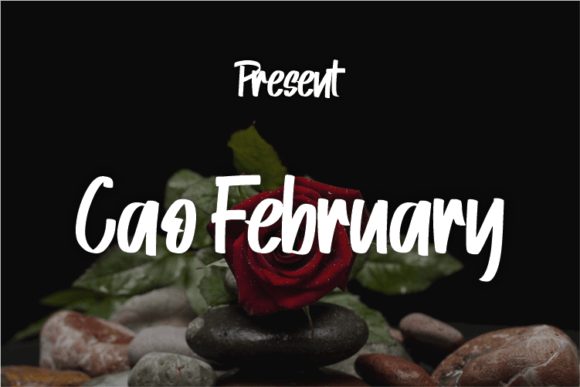
The Designer’s Delight: Unpacking the Elegance of Cao February Font
I’ll never forget the time I was working on a luxury fashion brand’s logo project, and I just couldn’t seem to find the perfect font. The client wanted something elegant, modern, and sophisticated, but everything I tried looked either too bland or too over-the-top. That’s when I stumbled upon Cao February, a script typeface that has a simple yet stunning style. ✨ In this article, I’ll share my experience with this beautiful font, its features, and how to make the most of it in your designs.
- ✅ Elegant and luxurious feel, perfect for high-end brands
- ✨ Simple yet modern design that’s versatile and easy to read
- ✅ Great for a variety of design projects, from logos to magazines and clothing
- ✨ Works well in both digital and print formats
A Few Quirks to Keep in Mind
While Cao February is an amazing font, there are a few things to be aware of: ⚠️
- 🤔 May not be the best choice for very long texts or body copy, as it can be a bit ornate
- ⚠️ Limited availability of certain characters or glyphs, so be sure to check the font specs
The Story Behind Cao February: Designer Inspiration
Cao February was designed with the goal of creating a simple, modern script typeface that’s both elegant and versatile. The designer, available on MyFonts, drew inspiration from classic script fonts, but with a fresh twist. The result is a font that’s perfect for luxury brands, fashion designs, and creative projects that need a touch of sophistication.
Q: What is Cao February font best used for?
A: Cao February is perfect for elegant and luxurious logos, fashion brands, magazines, clothing, fonts, quotes, and more.